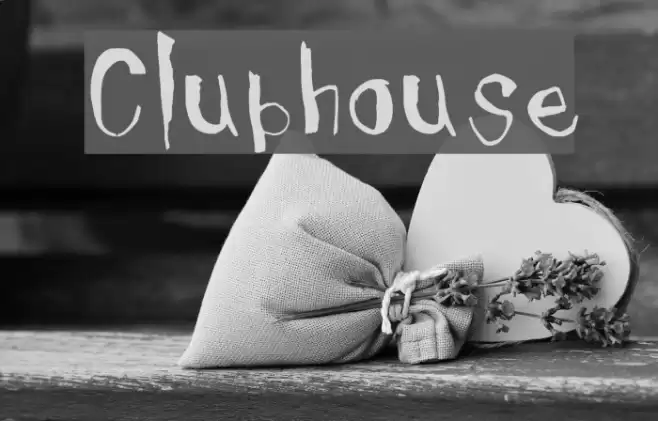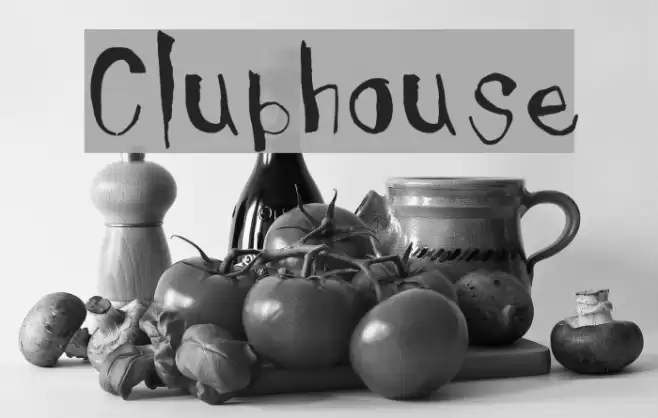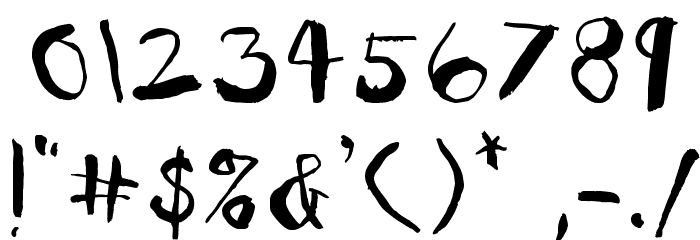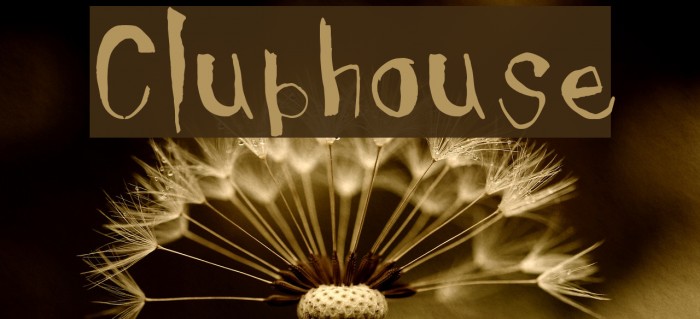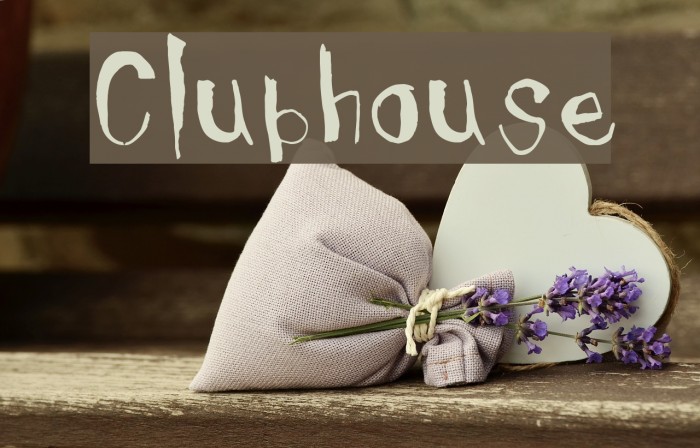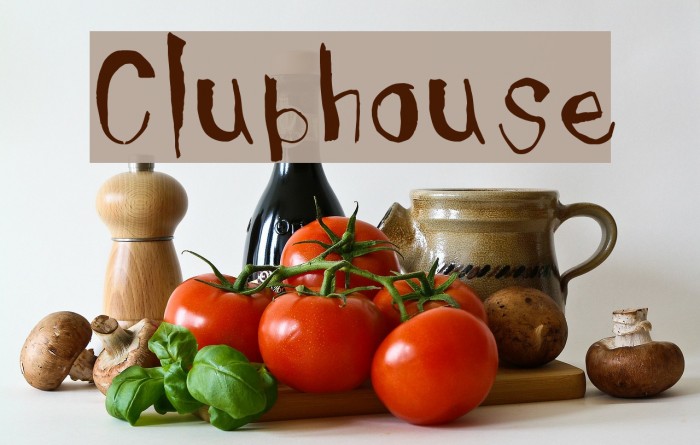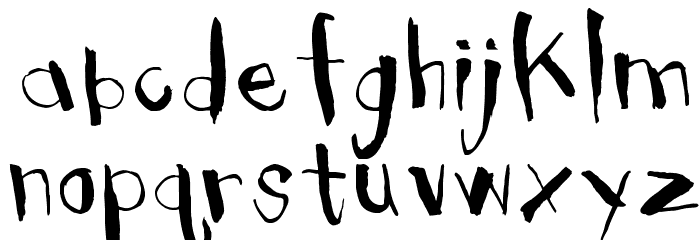
Clubhouse Font
Clubhouse Description
This font exhibits a playful and artistic style, characterized by its irregular and hand-drawn appearance. The letters vary in thickness, giving it a dynamic and spontaneous feel. The uppercase and lowercase letters maintain a consistent whimsical style, with some letters featuring exaggerated curves and angles. The numbers and special characters follow the same artistic theme, adding to the font's overall charm. This font is perfect for projects that require a personal touch or a creative flair, such as invitations, posters, or branding for artistic ventures.
A playful, hand-drawn font with irregular, artistic strokes from Basic fonts.
- Font: Clubhouse
by NicholasJudy456 - Weight: Regular
- Proposed Projects: Ideal for creative projects like invitations, posters, and artistic branding.